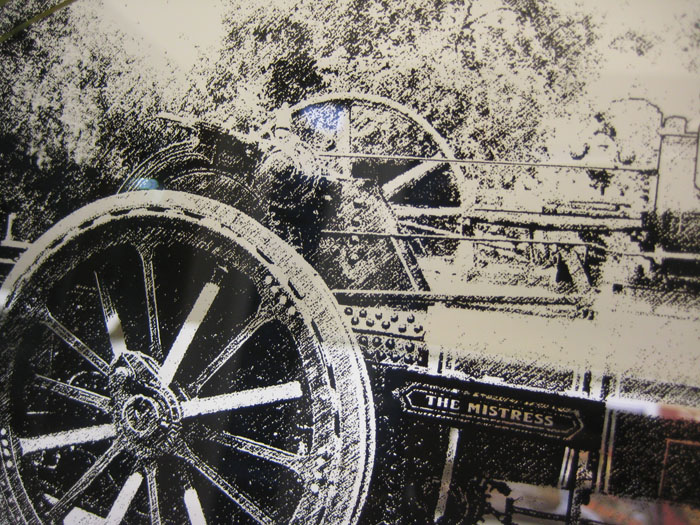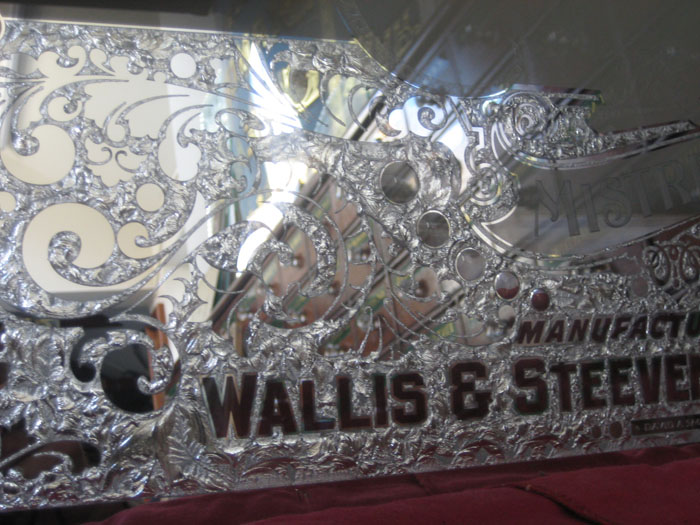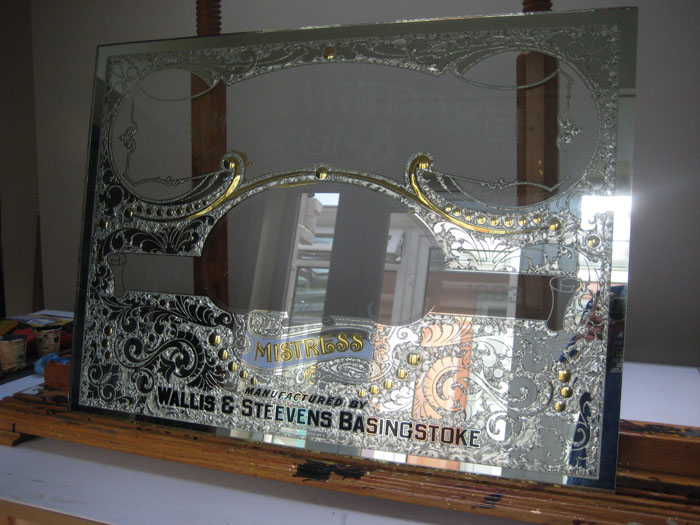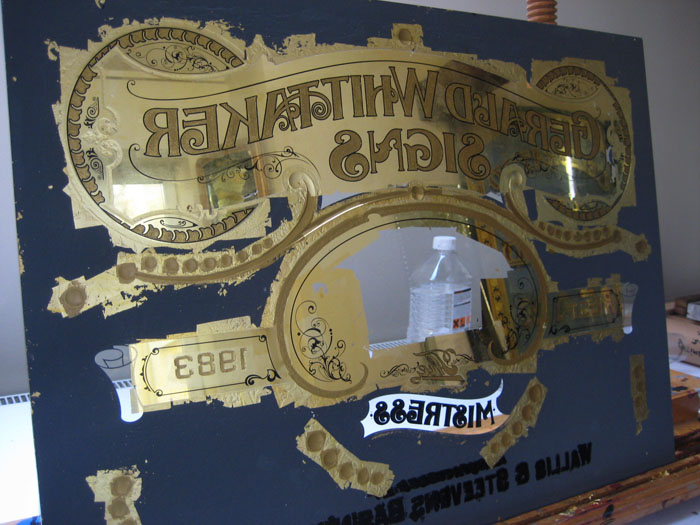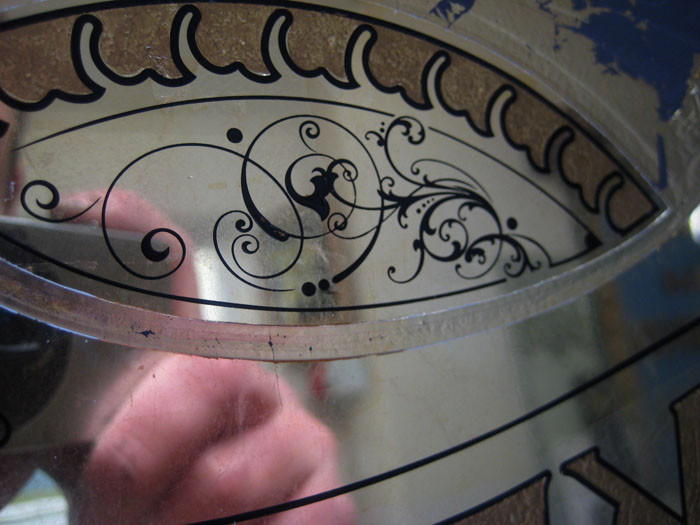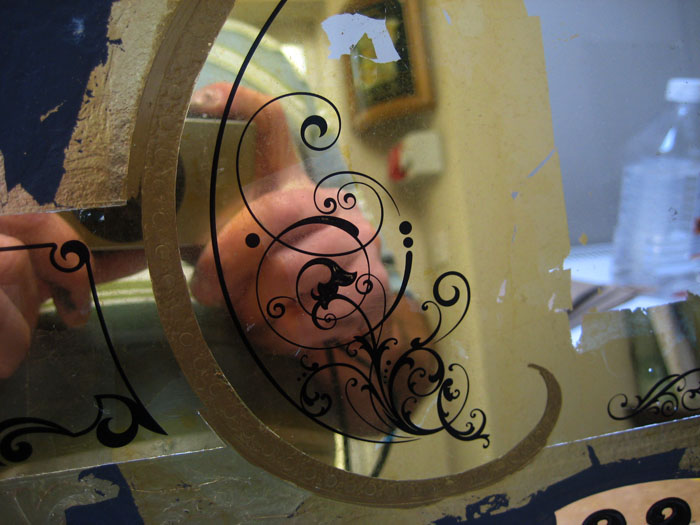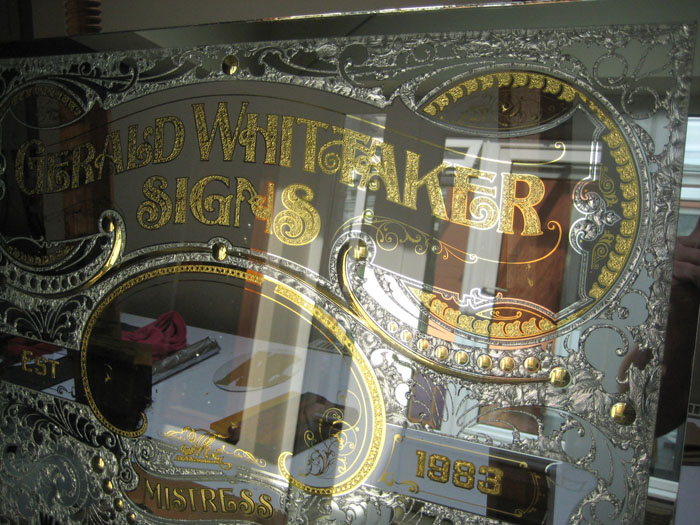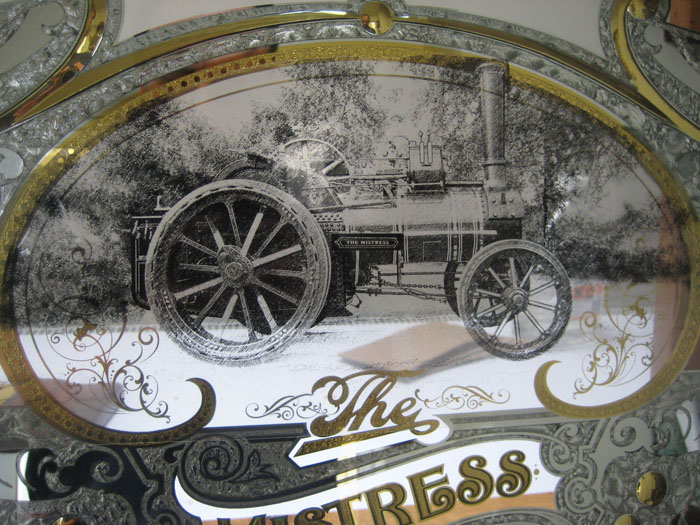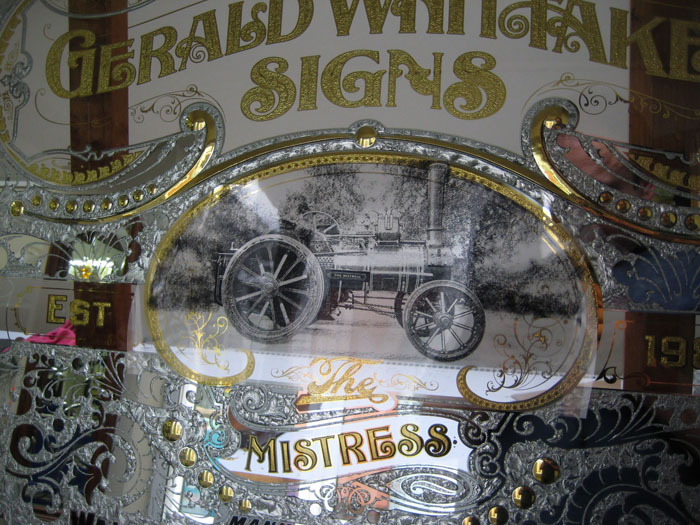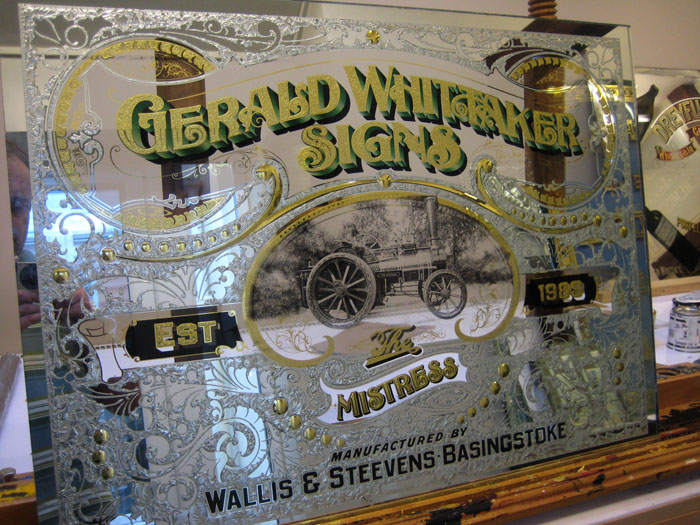
Gerald Whittaker Signs
I have just finished this piece of work. Gerald Whittaker is a signwriter from Hampshire here in England ,his wife Julia commisioned me to make this piece for him as a suprise birthday present for May 9th . I made up a design and liked the look of a Rawson and Evans panel that I had seen . I went about vectoring the panel and changing the design elements like adjusting it for brilliant cutting and acid etching and adding text and a pictorial steam engine which Gerald owns . It took a while to get all the vectors clean and sharp ready for cutting. Can you believe it! after doing all this work I found the same scroll panel that Gary Godby had sent me 3 years before, I could have saved so much time if I had just looked through my images first .Oh well! The Traction Engine belongs to Gerald and his wife Julia, she said he is so into fairground artwork and Engines that it would be nice to have his own engine on the panel along with the makers name and address. Wallis and Steevens Traction Engine manufacturers were a big supplier of these machines back 100 years ago. Take a look at the company and it's history http://www3.hants.gov.uk/museum/wallis-steevens.htm . Wikipedia also has alott of info about them . Anyway enough of me going on this is how it came out.
p.s he actually got it this week as I was too busy to get it finished in time . The trees I made using another photo of a country scene and adding the same filter effect which I have mentioned on the next post
The image was scanned from a photo. I tried a way of giving it an old print look, I never really liked the dotted half tone effect you get from like newspaper prints.
I ended up adding a scratched filter to the image once I had made it a grayscale file. Came out very detailed as you can see
This bottom image is now printed with the traction engine, I only pulled the screen across once without flood pulling so that I was able to get maximum detail with a thick ink layer the next print I made filled the detail in, so for any projects that you have avoid flood pulling for pictorial work on fine details.
Here you see I have painted on a translucent red enamel to avoid blacks and reds becoming brown once I started blending them together